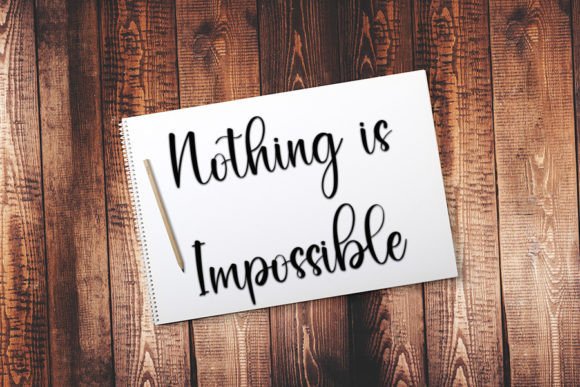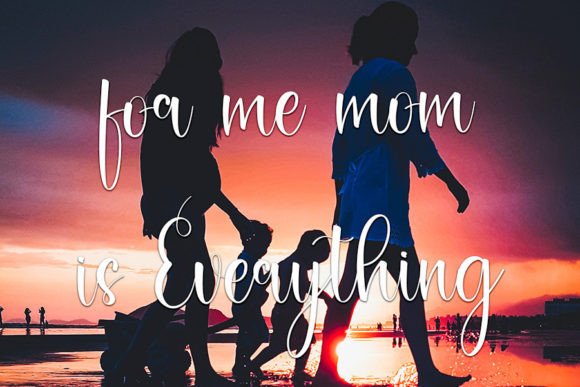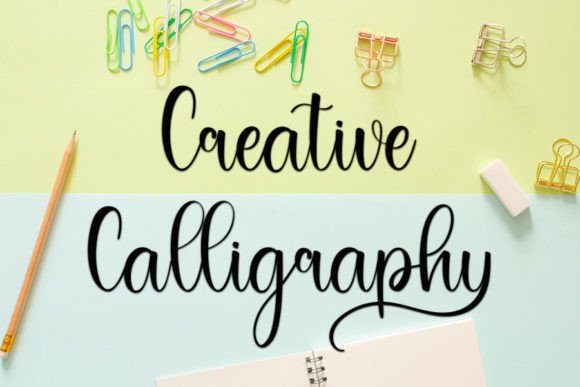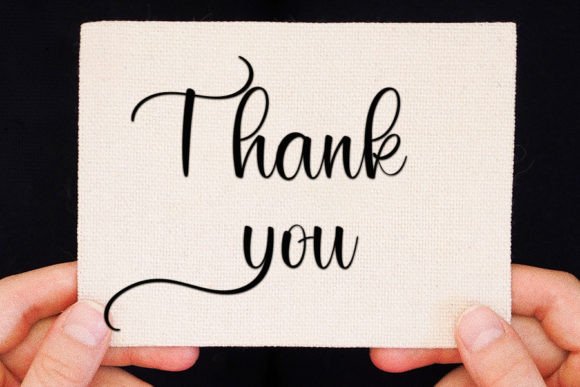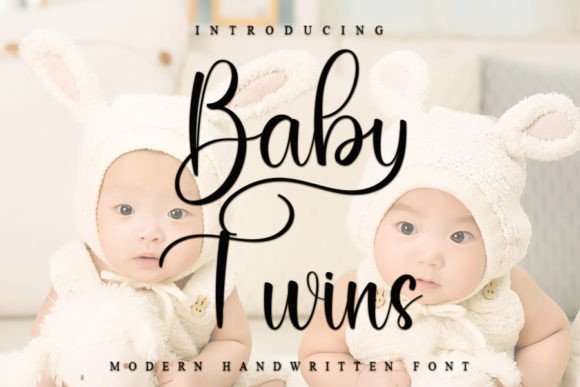
Baby Twins Font: The Perfect Addition to Your Design Arsenal
Are you a designer or crafter looking for a unique and elegant font to elevate your projects? Look no further than the Baby Twins Font! This beautiful handwritten font is described by its elegant touch, making it perfect for a wide range of applications. In this article, we’ll dive into the world of Baby Twins Font and explore its features, benefits, and uses.
What is Baby Twins Font?
Baby Twins Font is a neat and beautiful handwritten font that exudes an air of sophistication and elegance. Its incredibly distinct and timeless style makes it perfect for designers and crafters who want to add a touch of class to their projects. Whether you’re working on a logo, branding, packaging, or social media graphics, Baby Twins Font is sure to impress.
Features of Baby Twins Font
So, what makes Baby Twins Font so special? Here are just a few of its key features:
- Elegant touch: Baby Twins Font has a smooth, flowing script that adds an elegant touch to any project.
- Handwritten style: The font’s handwritten style gives it a personal and unique feel that’s perfect for a wide range of applications.
- Distinct and timeless: Baby Twins Font has a distinct and timeless style that will never go out of fashion.
- Versatile: The font is versatile and can be used for a wide range of projects, from logos and branding to packaging and social media graphics.
Benefits of Using Baby Twins Font
So, why should you choose Baby Twins Font for your next project? Here are just a few of the benefits of using this beautiful font:
- Adds elegance and sophistication: Baby Twins Font adds an air of elegance and sophistication to any project, making it perfect for high-end brands and luxury products.
- Stand out from the crowd: The font’s unique and distinctive style ensures that your project will stand out from the crowd and grab attention.
- Easy to read and understand: Despite its elegant and cursive style, Baby Twins Font is easy to read and understand, making it perfect for body text and captions.
Uses of Baby Twins Font
Baby Twins Font is a versatile font that can be used for a wide range of projects, including:
- Logos and branding: The font’s elegant and sophisticated style makes it perfect for logos and branding projects.
- Packaging: Baby Twins Font is ideal for packaging projects, such as labels, tags, and product packaging.
- Social media graphics: The font’s unique and distinctive style makes it perfect for social media graphics, such as Facebook and Instagram posts.
- Stationery and invitations: Baby Twins Font is ideal for stationery and invitation projects, such as wedding invitations and greeting cards.
Tips for Using Baby Twins Font
Here are a few tips for using Baby Twins Font in your next project:
- Use it sparingly: While Baby Twins Font is a beautiful font, it’s best to use it sparingly to avoid overwhelming the reader.
- Pair it with a sans-serif font: Pairing Baby Twins Font with a sans-serif font can create a beautiful and elegant contrast.
- Experiment with different colors: The font’s elegant style looks great in a wide range of colors, so don’t be afraid to experiment and find the perfect hue.
In conclusion, Baby Twins Font is a beautiful and elegant handwritten font that’s perfect for designers and crafters looking to add a touch of sophistication to their projects. Its unique and distinctive style, combined with its versatility and compatibility with a wide range of software, make it a must-have font for any design arsenal. So why not give Baby Twins Font a try and see how it can elevate your next project?